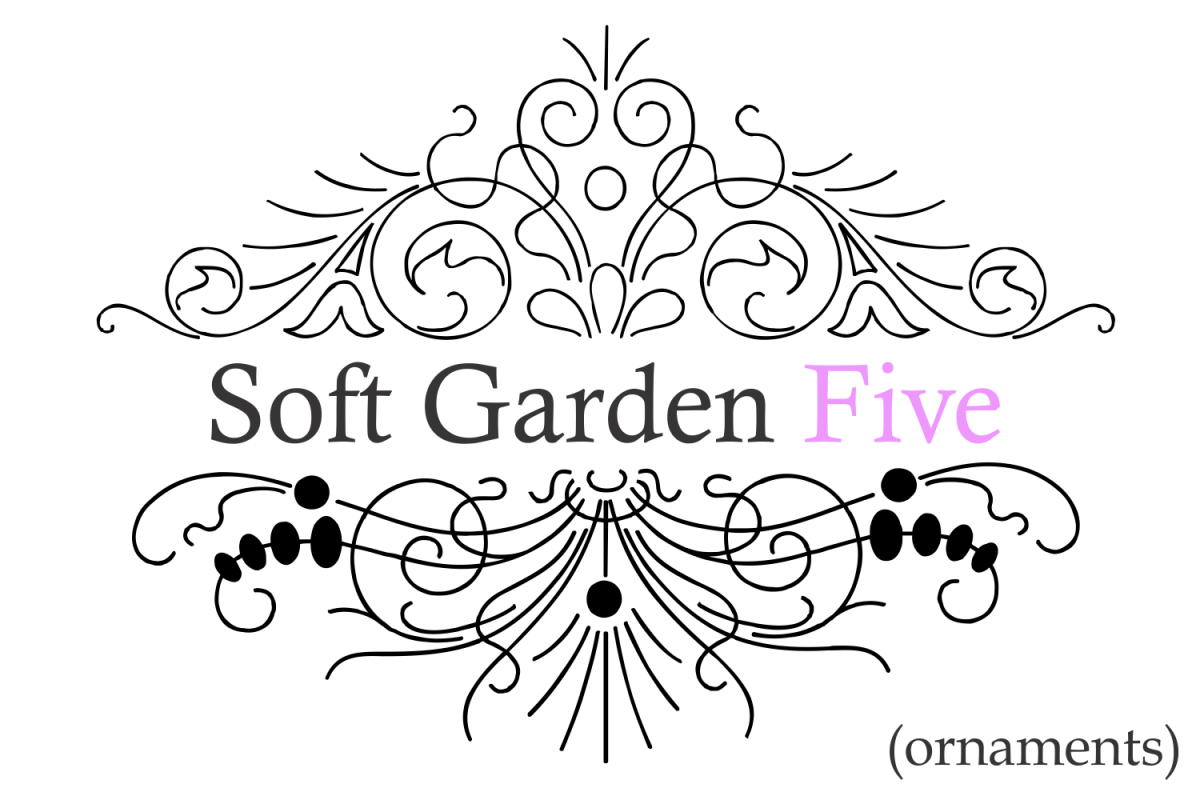
Soft Garden Five
SoftGarden is a collection of ornaments, available in font format. Good to use in arts and crafts works, books of arts, stationery, publishing stuff and many other applications. See too the family pack with SIX FONTS here : https://fontbundles.net/intellecta-design/39101-soft-garden-pack